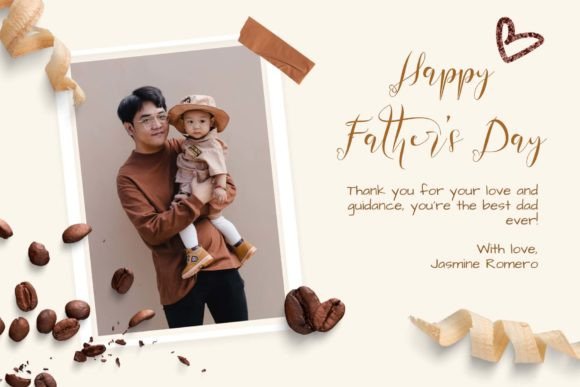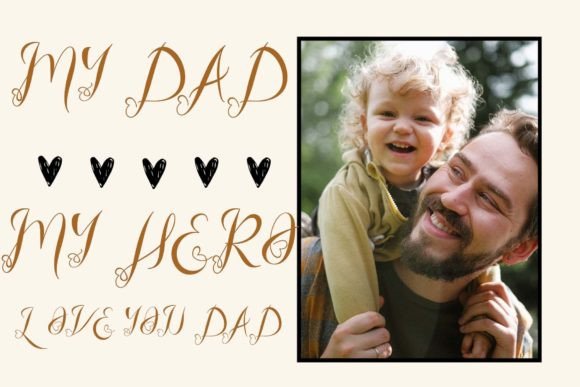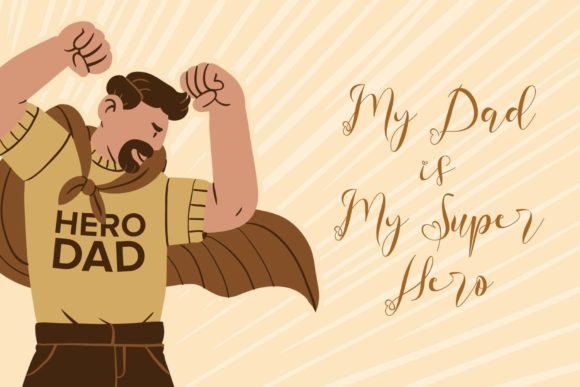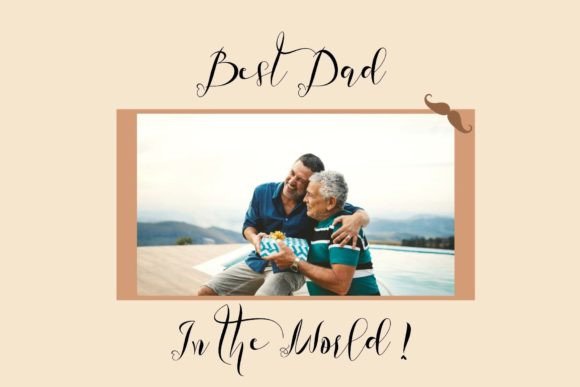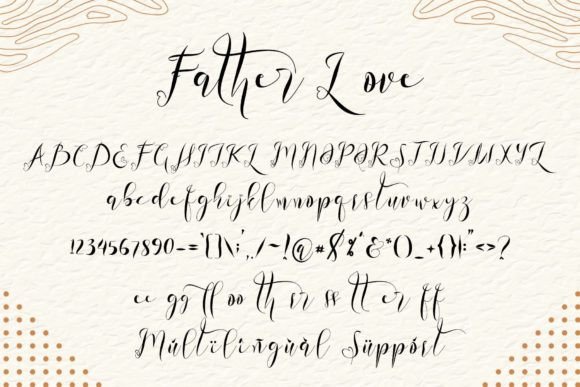
Introduction to Father Love Font
“Father Love” is a beautiful and unique handwritten font.
It is is perfect for Christmas, Father’s Day, Memorial Day, the 4th of July, teachers appreciation, graduation, and so much more .
Key Features of Father Love Font